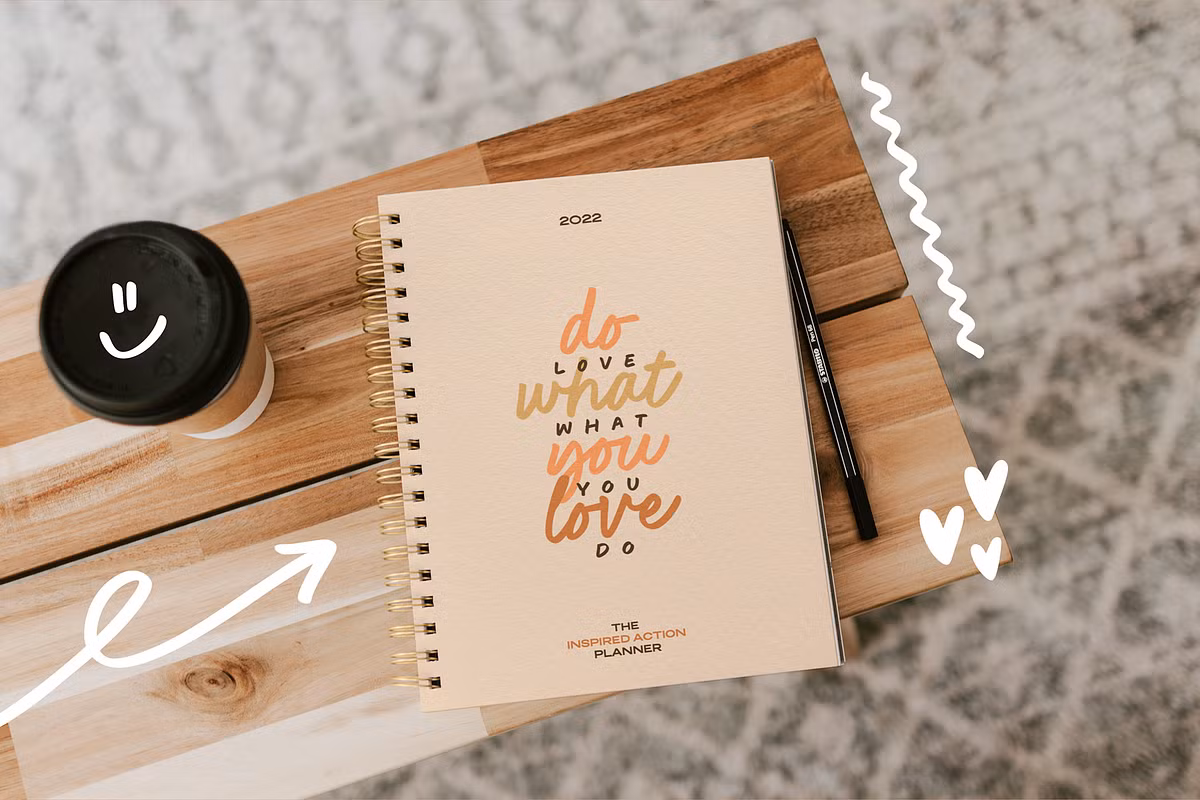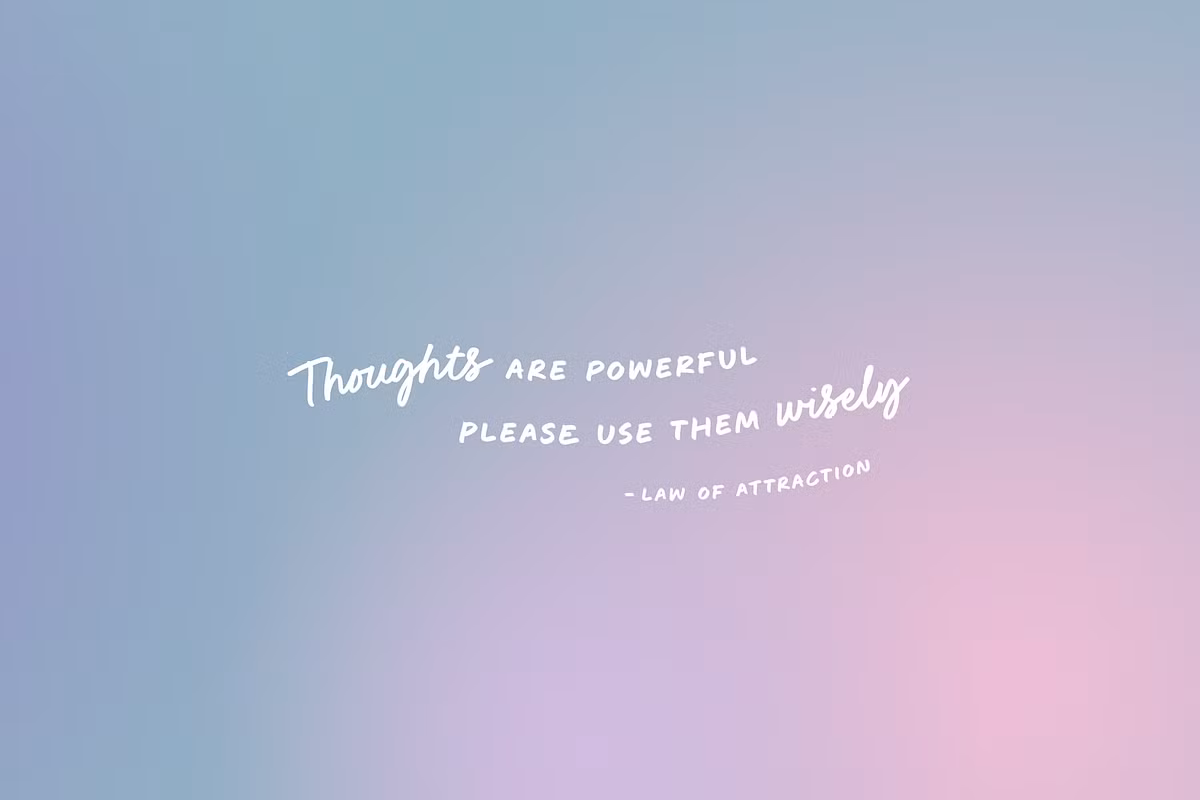
CuteDrop Handwritten Font Duo: Charming Script and All Caps Fonts
Introducing the CuteDrop Handwritten Font Duo. So, you want to know about the CuteDrop Handwritten Font Duo? It’s a really cool combination of a script font and an all caps font that were both written with the same marker pen. This means they look great together and you can use them in lots of different ways to add a personal touch to your designs. You can use them as a pair or mix and match them to create a unique look that’s all your own. The best part is, they have a totally handmade feel that will make your creations stand out. With the CuteDrop fonts, you’ve got the freedom to be creative and make something truly special.
Design Style of CuteDrop Fonts
The CuteDrop Handwritten Font Duo has a really fun and carefree feel to it. The script part, called CuteDrop Script, has beautiful curves and smooth lines that look just like handwriting. It also comes with some extra lowercase letters that you can use to make your text look more unique and personal. This makes it great for projects where you want to add a bit of warmth and personality. The font is perfect for things like invitations, greeting cards, and other stuff where you want to make a good impression. It’s also really nice for blogs, social media, and other online things where you want to connect with people in a friendly way. Overall, the CuteDrop Handwritten Font Duo is a great choice if you want to add some fun and personality to your writing.
CuteDrop Caps is really cool because it has a font that is all big letters and really stands out. It’s got two different sets of big letters, so you can use them in different ways to make your projects look better. When you use these two fonts together, it makes a nice mix that’s easy to read and still looks handmade and pretty.
The CuteDrop fonts have a really nice look that works well for lots of different things, like invitations, greeting cards, and social media pictures. They’re great for designers who want to add a personal touch to their work. The CuteDrop Handwritten Font Duo is a good choice because it can make your designs look special and stand out from others. You can use it for things like branding materials and other projects where you want to add a little something extra. It’s a good way to make your work look more interesting and unique.
Character Sets and Multilingual Support
The CuteDrop Handwritten Font Duo is really nice to look at and also very useful because it works with many languages. It supports lots of languages like English, French, German, Italian, Spanish, and many more, which makes it great for designers who make things for people all around the world. This font can be used for projects that need to be understood by people who speak different languages, which is very helpful. It’s a good choice for designers who want to make sure their work can be enjoyed by everyone, no matter where they’re from.
CuteDrop Script also has some extra characters that can make your writing look more like it’s handwritten. These are called lowercase alternates and you can use them in programs that support OpenType features. With these, you can make your text really special and one-of-a-kind, which is great for designs that need a personal touch.
Use Cases for the CuteDrop Font Duo
The CuteDrop Handwritten Font Duo is incredibly versatile, suitable for a wide range of design projects. Here are some common use cases:
- Invitations and Greeting Cards: The charming and personal touch of the CuteDrop Script font makes it perfect for wedding invitations, birthday cards, and thank-you notes.
- Social Media Graphics: Use the CuteDrop fonts to create eye-catching posts and stories that engage your audience and reflect your brand’s personality.
- You can use CuteDrop Script and CuteDrop Caps together in things like logos and business cards to make your brand seem nice and easy to talk to. This can help people feel good about your company and want to work with you.
When it comes to creating print and digital products, like planners and journals, or even digital downloads, you want them to look nice and consistent. That’s where CuteDrop fonts come in – they help you get that cohesive and attractive look that makes your products stand out.
Pairing Suggestions for CuteDrop Fonts
When you’re working with typography, one of the toughest things to get right is pairing fonts. But if you can nail it, the results are amazing. The CuteDrop Handwritten Font Duo is a great place to start, as it’s specifically designed to work well together. That being said, here are a few suggestions to help you take your designs to the next level and make the most of this font duo.
- With Sans Serif Fonts: Pair CuteDrop Script with clean sans serif fonts like Montserrat or Open Sans to create a modern and balanced look, perfect for website headers or flyers.
- For a classic look, try pairing CuteDrop Caps with a traditional serif font, such as Merriweather. This combination is perfect for things like brochures and invitations that you’re going to print out. The serif font gives it a more old-fashioned feel, which can be really nice for certain types of projects.
- With Other Handwritten Fonts: Mixing CuteDrop Script with other handwritten or brush fonts can create a playful and dynamic design that captures attention.
Experimenting with different combinations will allow you to find the perfect pairing that suits your project’s tone and style.
The CuteDrop Handwritten Font Duo is really nice and can add a lot of character to your designs. It’s a collection of fonts that work well together and have a lot of personality. You can use them for lots of different things, like making invitations, graphics for social media, or materials for your brand. The fonts are very versatile and can help make your designs look unique and elegant. If you want to add a handmade touch to your work, the CuteDrop fonts are a great choice. They can help inspire your creativity and make your designs stand out from the rest. With their cohesive style and extensive character sets, you can use them in many different ways to create something really special.